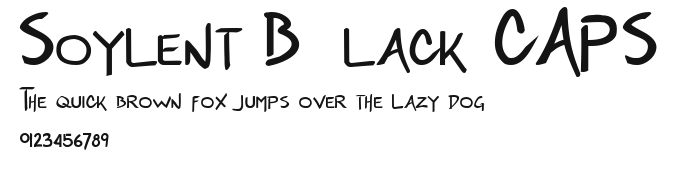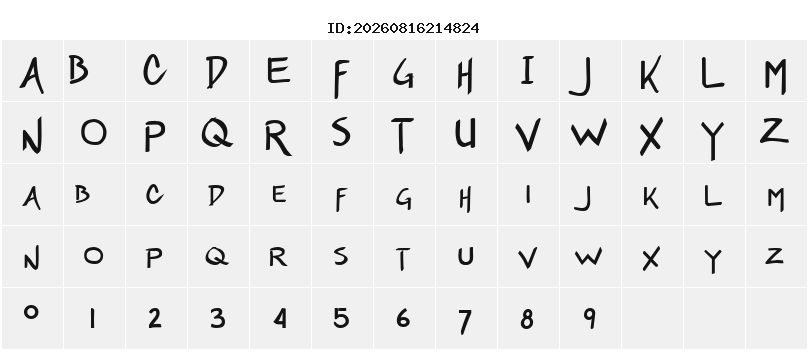
Soylent Black CAPS Preview
• Font Name: Soylent Black CAPS
• Font ID: Soylent Black Sloppy
• Full Font Name: Soylent Black CAPS
• PostScript Name: SoylentBlackCAPS
About Soylent Black CAPS.ttf
Soylent Black CAPS.ttf is a modern, elegant sans-serif font designed for ultimate readability and visual harmony. Perfect for branding, headlines, web design, and print materials.